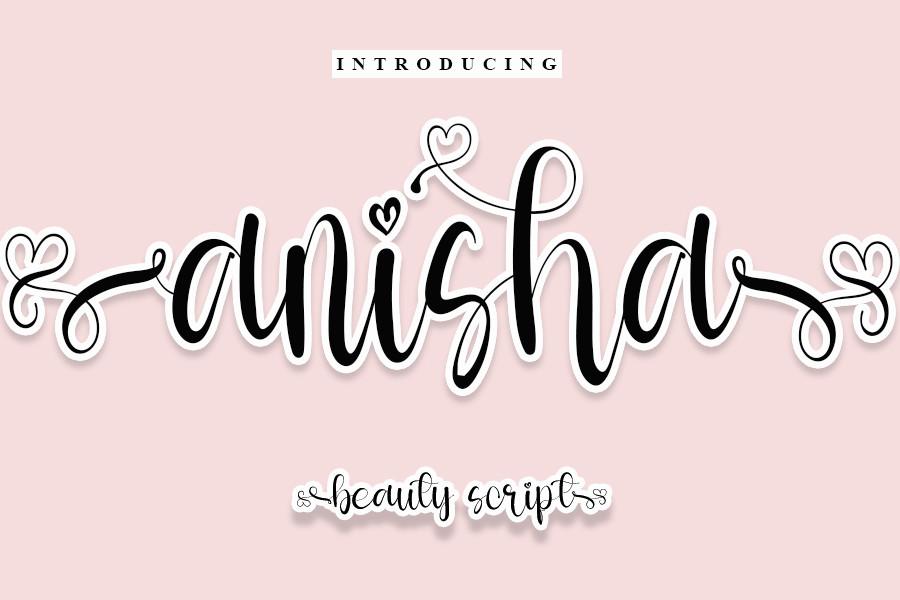
Anisha Font Description
Anisha is an elegant and modern serif font. With well-rounded characters and a graceful, friendly shape, this font can easily become your go-to when it comes to more delicate projects and creations. This font is PUA encoded which means you can access all of the glyphs and swashes with ease!